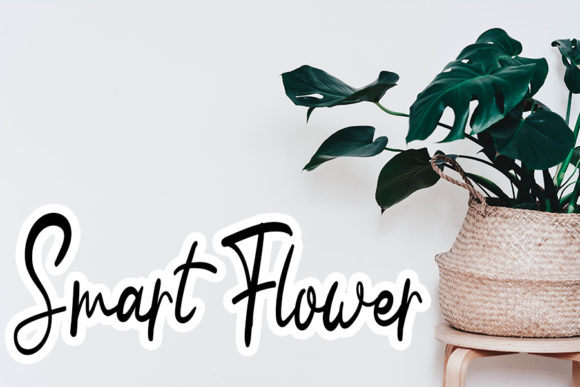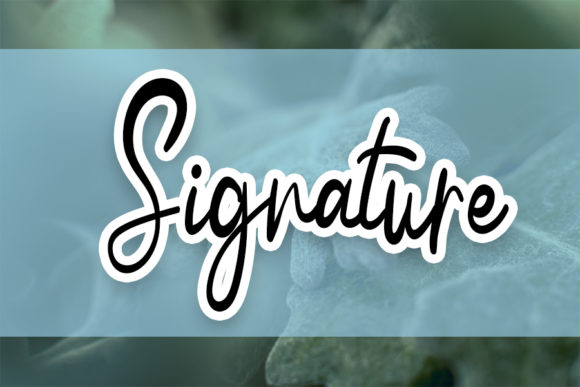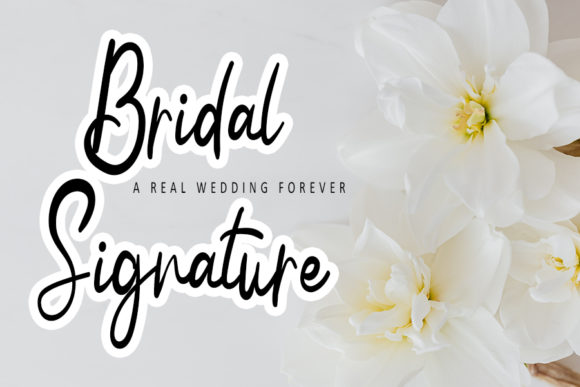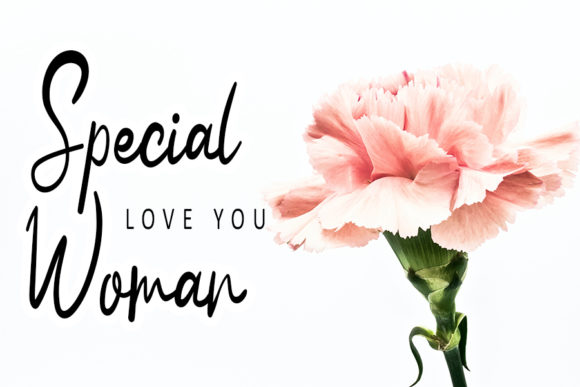
Handwriting Font
About Handwriting Font
Handwriting is a casual and relaxed handwritten font. Get inspired by its sweet style and use it to create gorgeous wedding invitations, beautiful stationary art, eye-catching social media posts, and much more!